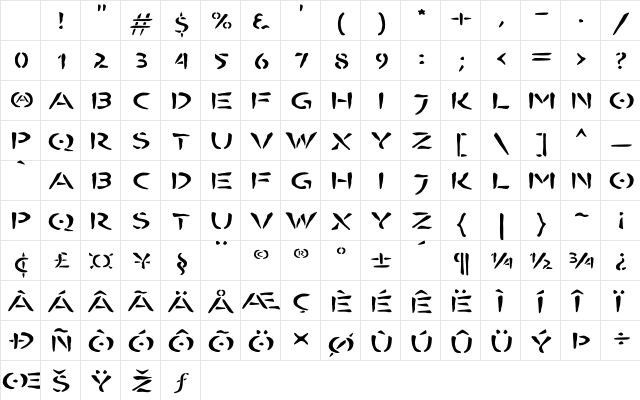
Complete BOMBORA Regular glyph index. Displaying only characters natively supported by BOMBORA Regular font.
BOMBORA is a composed and adaptable typeface that performs quietly and consistently across a wide range of design contexts.